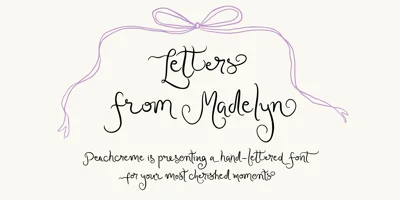
Letters from Madelyn Font
Letters from Madelyn Font is ideal for romantic correspondence designs, vintage love letters, personal stationery collections, intimate wedding invitations, heartfelt greeting cards, nostalgic memoir layouts, feminine branding projects, personal journal designs, handwritten poetry books, and romantic vintage-themed materials.
What makes Letters from Madelyn Font exciting is its deeply personal intimacy and romantic nostalgia that captures the essence of cherished handwritten correspondence with feminine elegance and emotional authenticity. This enchanting typeface embodies the spirit of personal letters with its delicate character forms and intimate proportions that evoke fountain pen ink on cream paper, pressed flowers between pages, and the tender emotions shared through handwritten words. The font's personal character creates an immediate sense of romantic connection and the kind of heartfelt intimacy that makes every message feel like a treasured keepsake.
Letters from Madelyn Font family includes regular weight with intimately crafted character designs featuring feminine curves and handwritten proportions. The typeface maintains excellent readability while showcasing its distinctive romantic personality through lovingly designed letterforms that seem written with careful attention and emotional sincerity by someone who understands the power of personal expression.
Romance designers consistently choose Letters from Madelyn Font for projects requiring authentic feminine appeal and romantic credibility. This remarkable typeface brings the warmth of personal correspondence to modern communications, combining vintage aesthetics with emotional authenticity to create memorable romantic experiences. The intimately designed characters ensure heartfelt impact across all applications, making it essential for wedding planners, stationery designers, and any organization seeking to communicate the transformative power of personal connection and the timeless beauty that comes from heartfelt written expression through Letters from Madelyn Font.